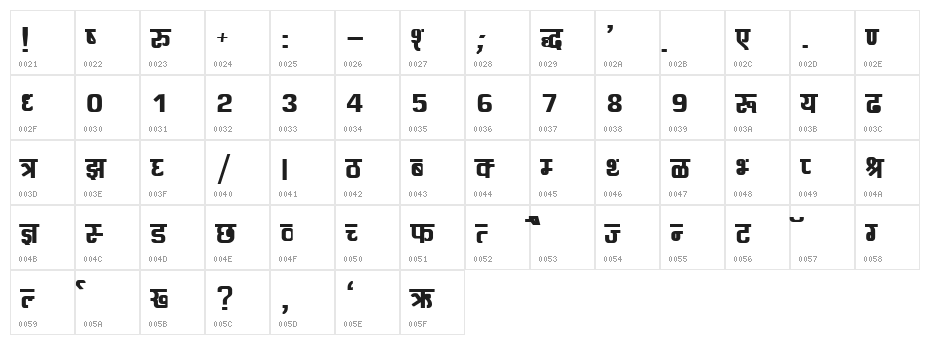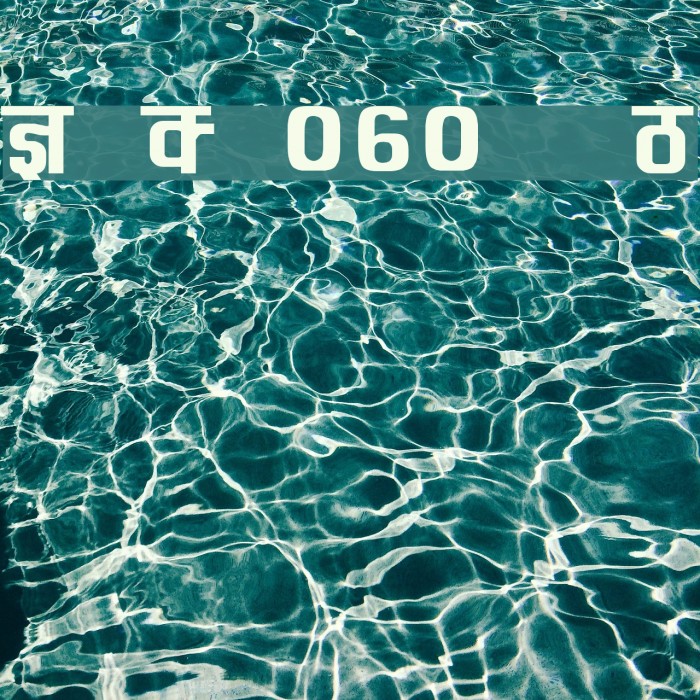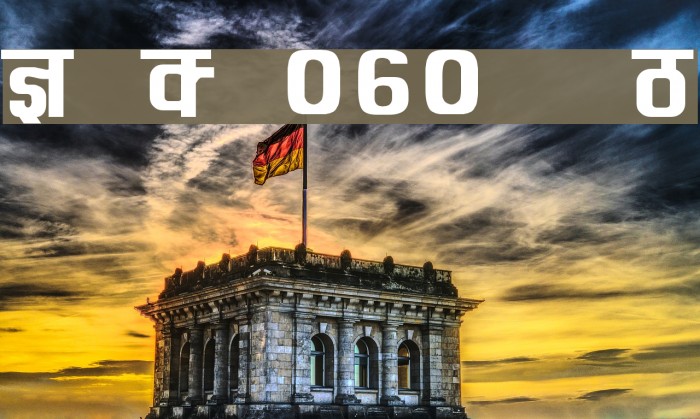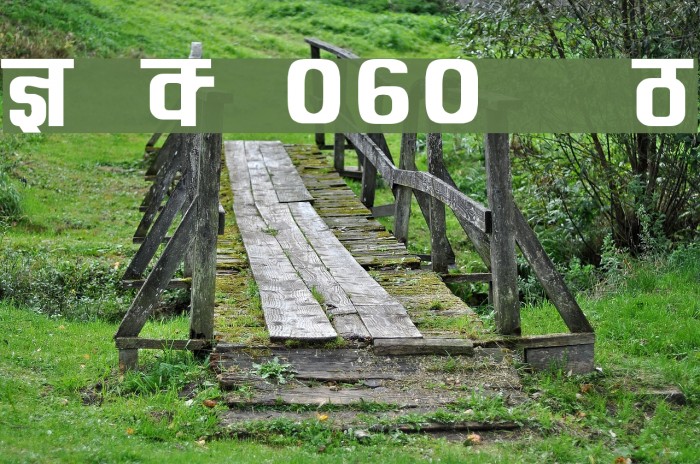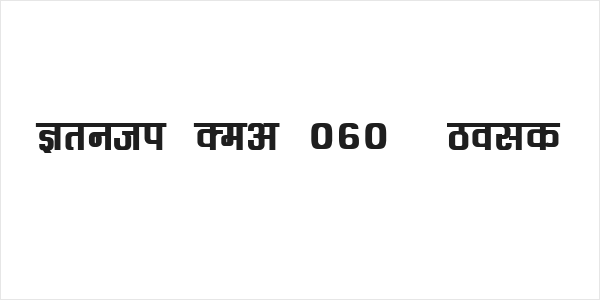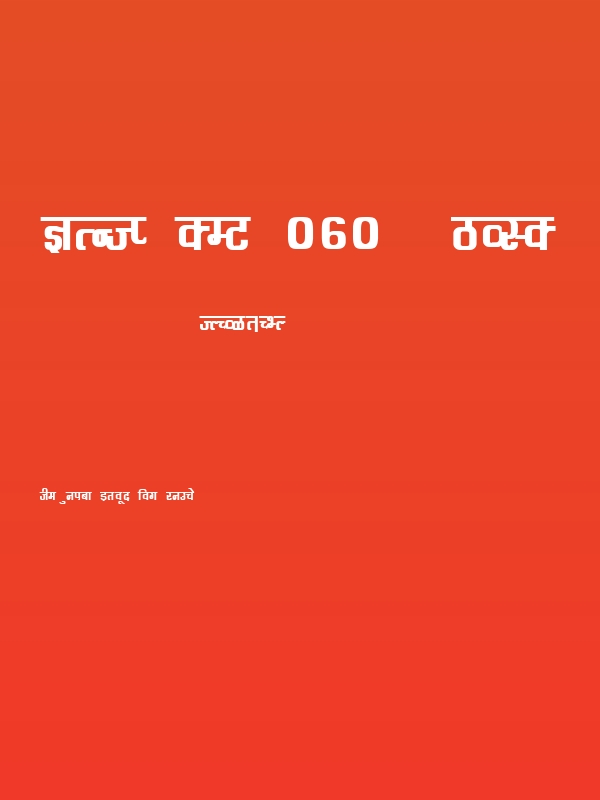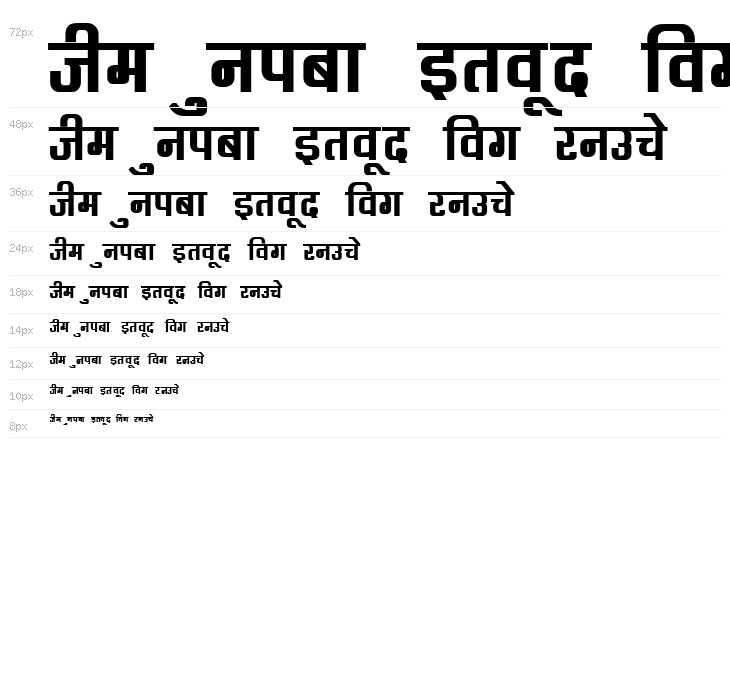
Kruti Dev 060 Bold Font
Kruti Dev 060 Bold Description
This font is a bold and striking Devanagari script, characterized by its thick strokes and strong presence. The characters are well-defined with a modern touch, making it suitable for impactful headlines and titles. The numerals are clear and bold, matching the overall robust style of the script. Special characters are distinct and maintain the bold aesthetic, ensuring consistency across all elements. The font's design is both functional and visually appealing, making it a versatile choice for various design projects.
| Proposed Projects | This font is perfect for creating eye-catching posters, banners, and headlines in print and digital media. It can also be used for branding projects that require a strong and modern Devanagari script. |